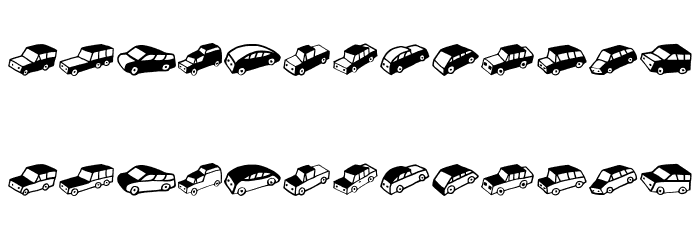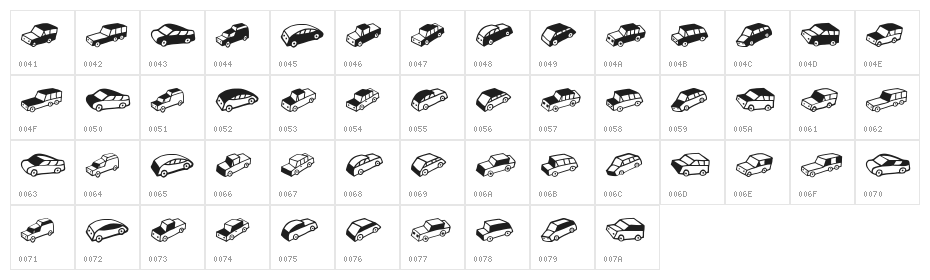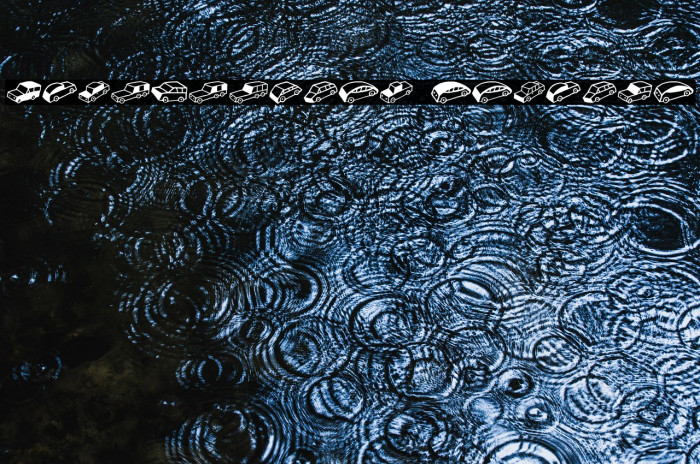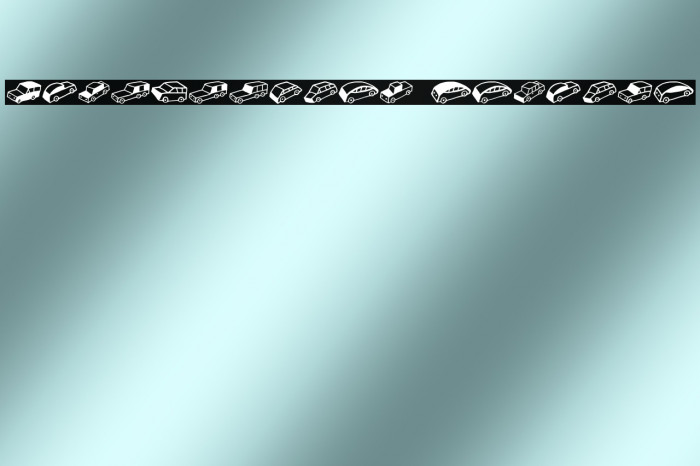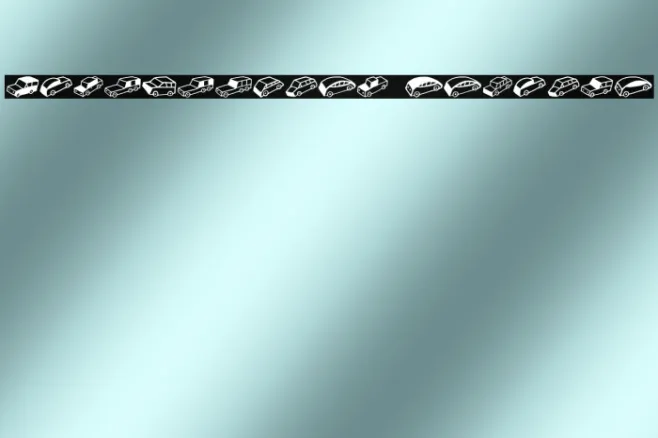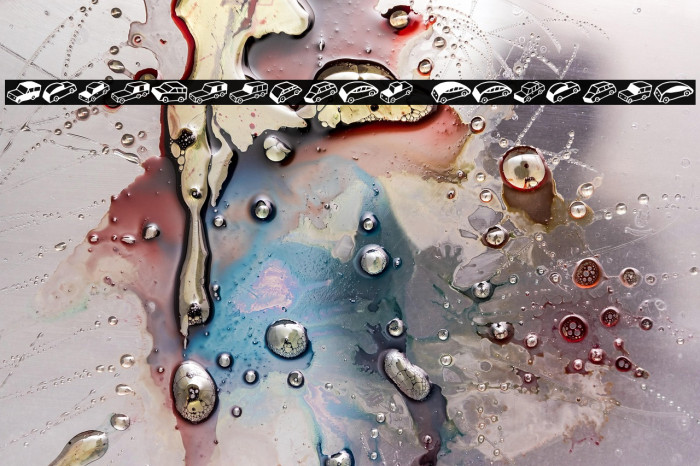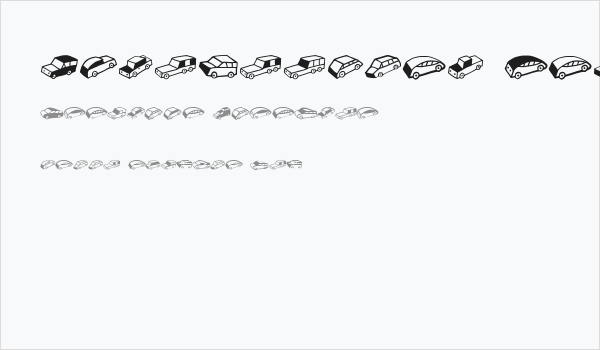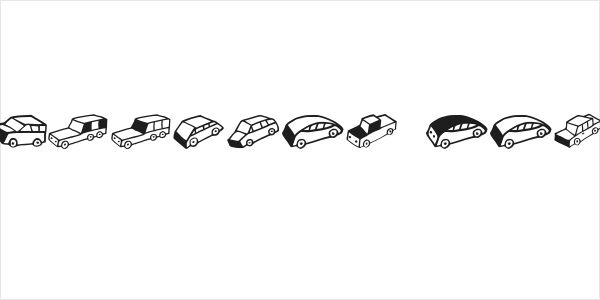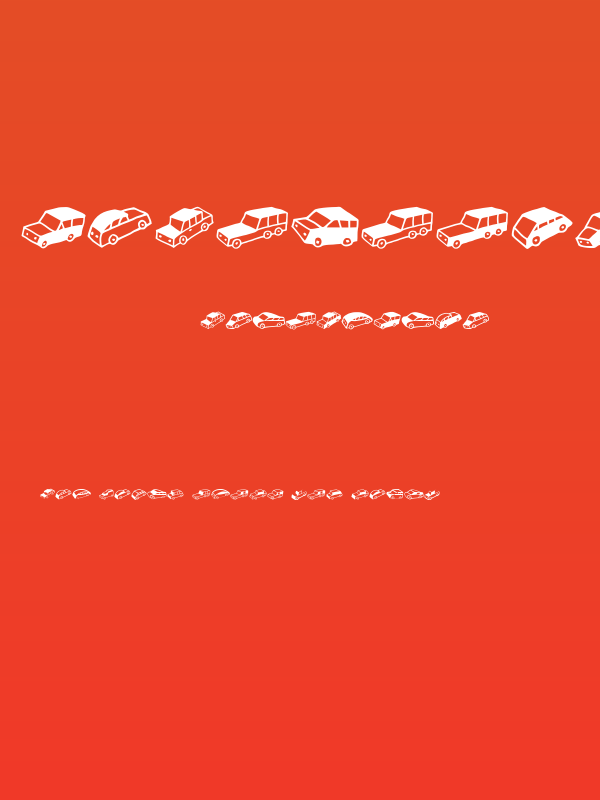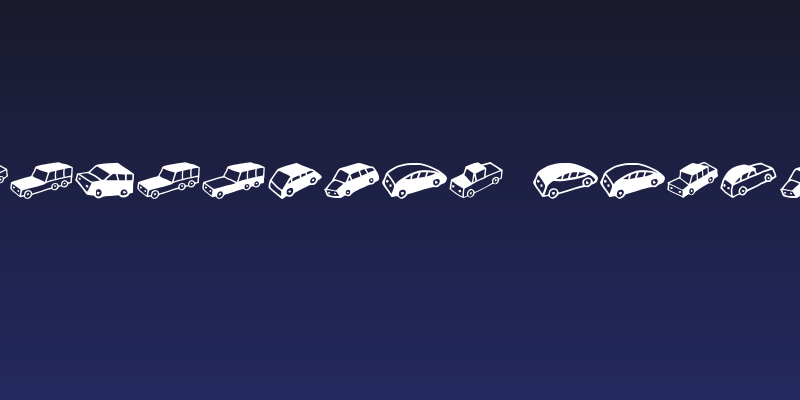
Automobiles Regular Font
Automobiles Regular Description
This is a decorative font featuring a series of stylized car illustrations. Each character is represented by a unique car design, showcasing a variety of vehicle shapes and styles. The font is playful and visually engaging, making it ideal for projects that require a fun and thematic approach. The characters are consistent in size and style, providing a cohesive look across the set. The designs are detailed yet simple enough to maintain clarity at smaller sizes.
| Overall Style | Playful and Thematic |
| Use Case | Logos, Posters, Educational Materials |
| Proposed Projects | Ideal for automotive-themed posters, children's books, educational materials, and playful branding projects. |